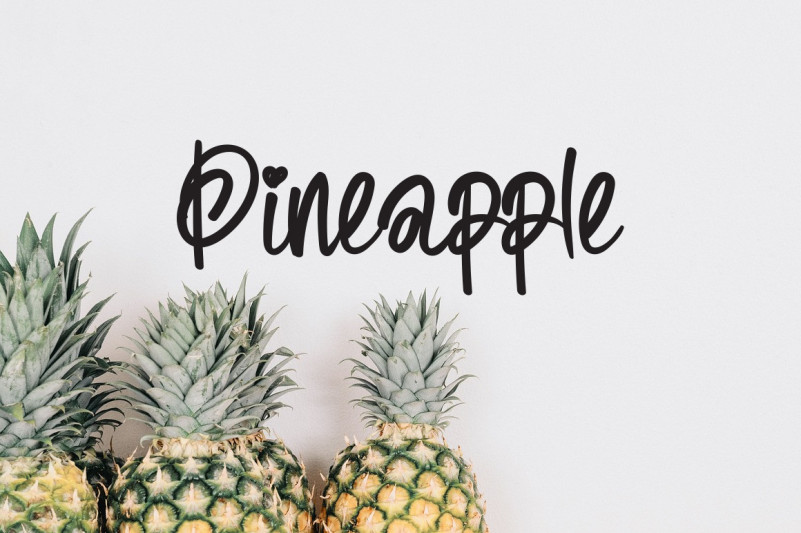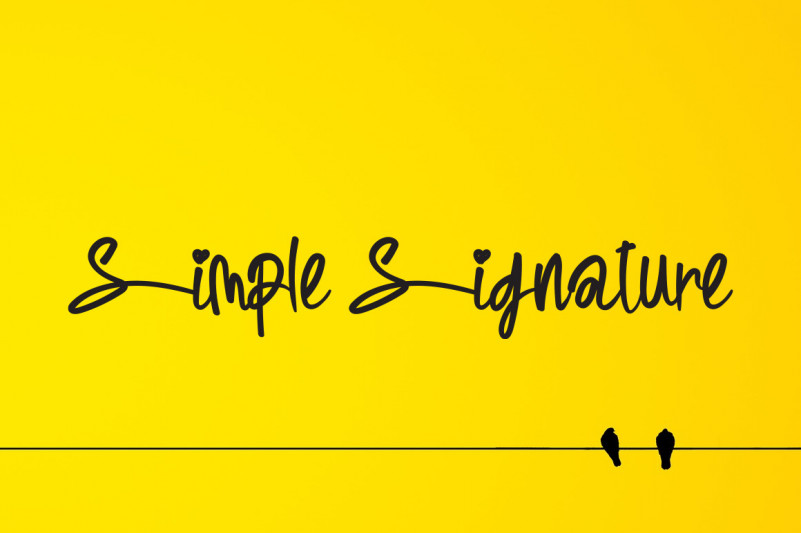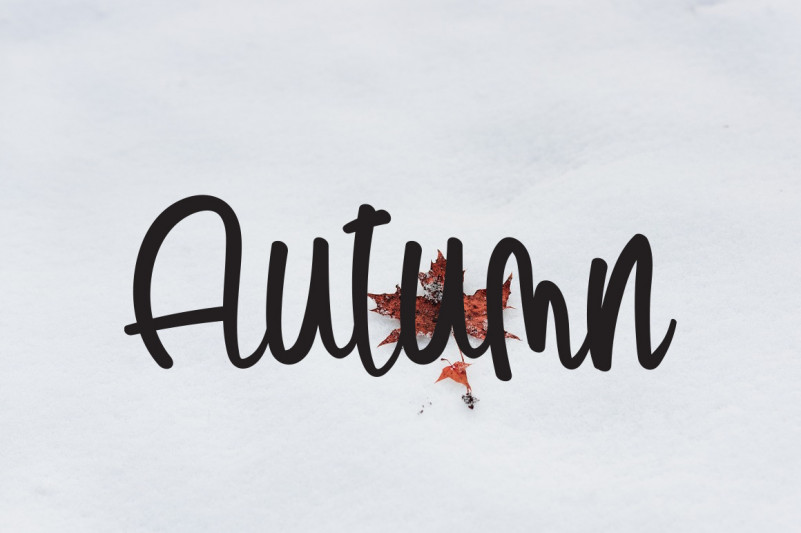
Simple Flower Font
It’s a whimsical script font with a relaxed theme, featuring a lovely style. No matter the topic, this font will be an incredible asset to your fonts’ library, as it has the potential to elevate any creation.